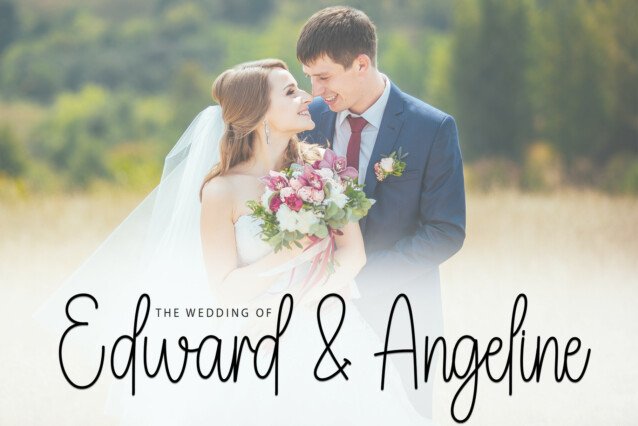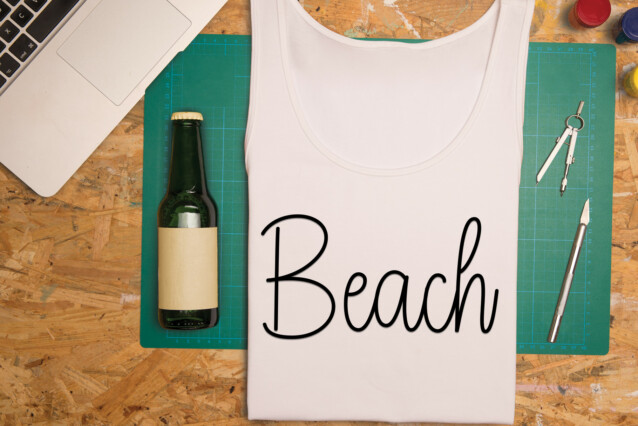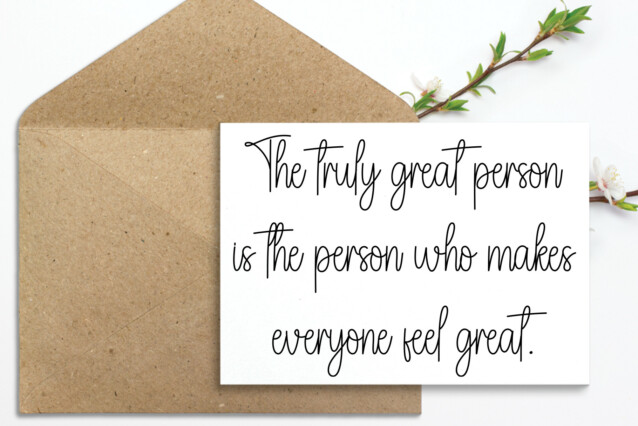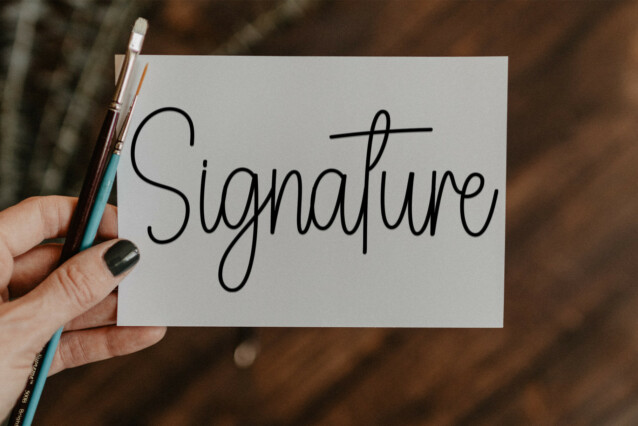
Entertaiment Beach Font is a sweet and friendly handwritten display font. Cute and fun, this font is ideal for writing wedding invitations, cards, or any other design that might need a playful touch!